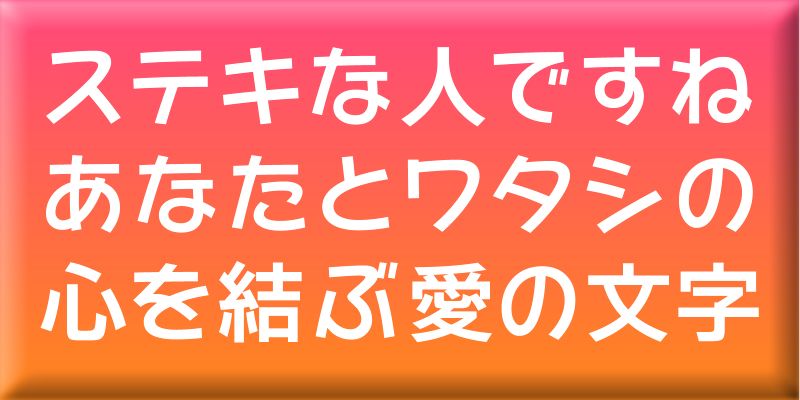
HappyRuika Font Free Download is a joyful and whimsical Japanese display typeface that radiates positivity and fun. With its handwritten style and cheerful, bouncy letterforms, HappyRuika is perfect for children’s books, kawaii branding, greeting cards, playful product packaging, and lighthearted event designs.
HappyRuika Font Free Download features rounded strokes, casual rhythm, and slight irregularities that give it a warm, handmade feel. It supports Hiragana, Katakana, Kanji, and basic Latin characters, making it ideal for bilingual or Japanese-focused projects that aim to engage audiences with a friendly tone.
Whether you're creating signage for a dessert shop, designing stickers, or adding charm to social media content, HappyRuika delivers an uplifting, personal touch with every character.
Cute, charming, and full of delight—HappyRuika Font is the perfect choice for designers looking to add happiness and heartfelt energy to their typography.